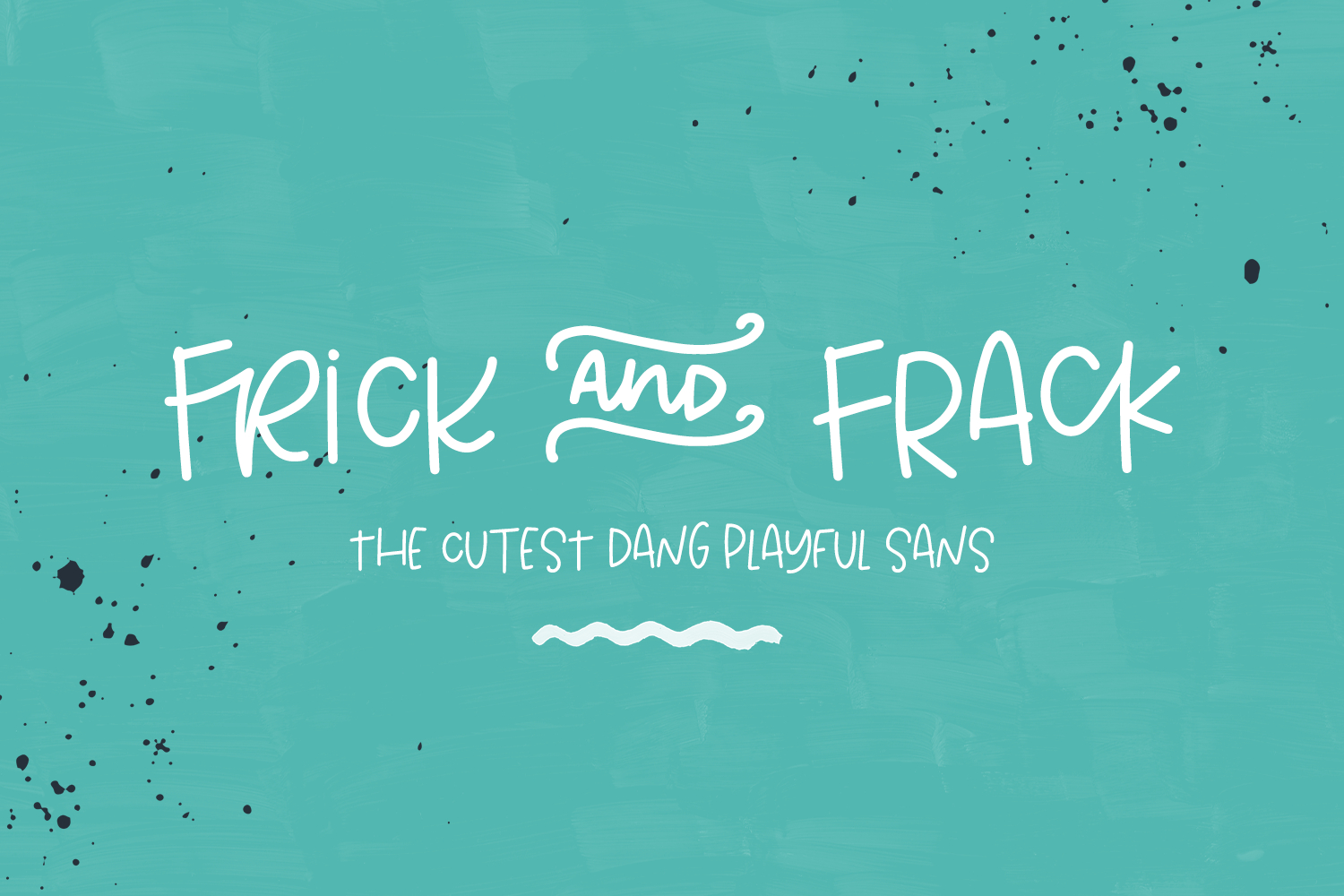
Frick and Frack Handwritten Font
Introducing Frick and Frack, a totally cute ballpoint pen font. Mostly all caps, there are a few lowercase characters sprinkled in! Frick and Frack includes 15 ligatures, some of them nested snugly with their partners and some of them with adorable connections. Type in all caps, all lowercase, or mixed case to vary the look of your project!
Frick and Frack Sans is best for:
- header elements that need a funky handwritten touch
- website design + website accents - think travel blogs, fashion blogs, & more
Frick and Frack Sans includes:
- 15 cute ligatures - bb, ck, ee, fr, la, li, ll, lo, oo, or, se, sl, ss, th, tt
- 2 alternate ampersands